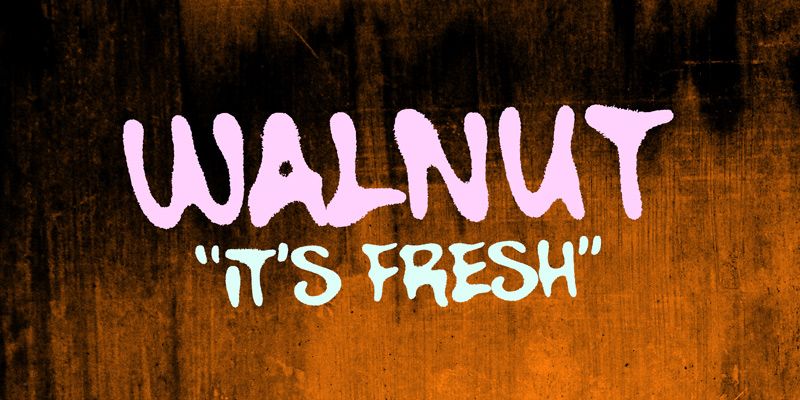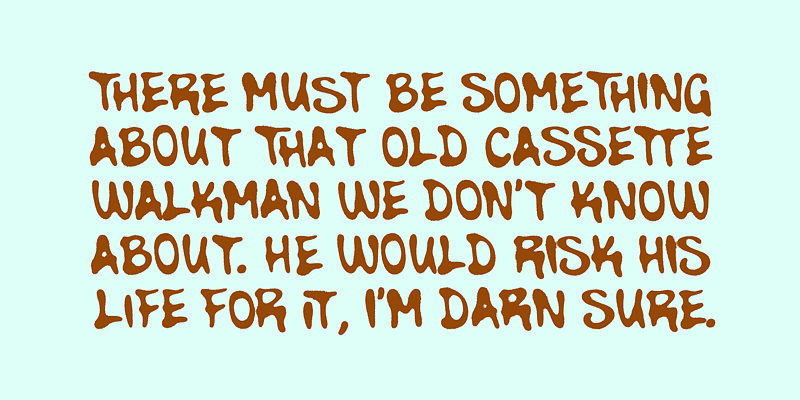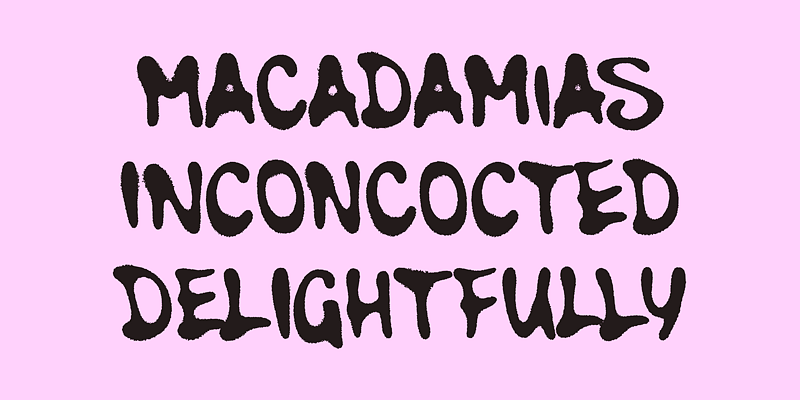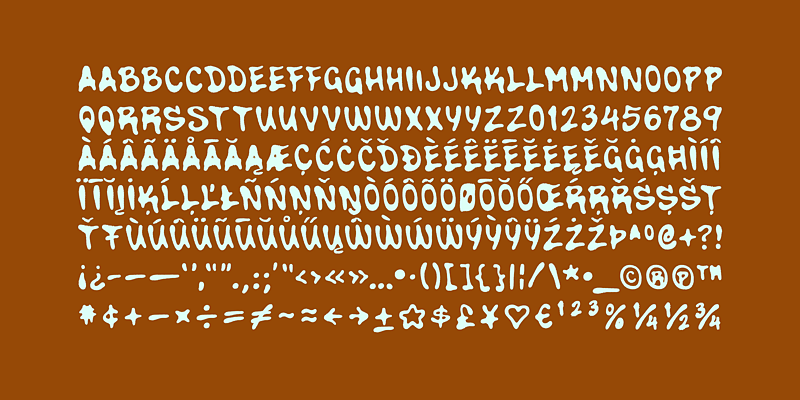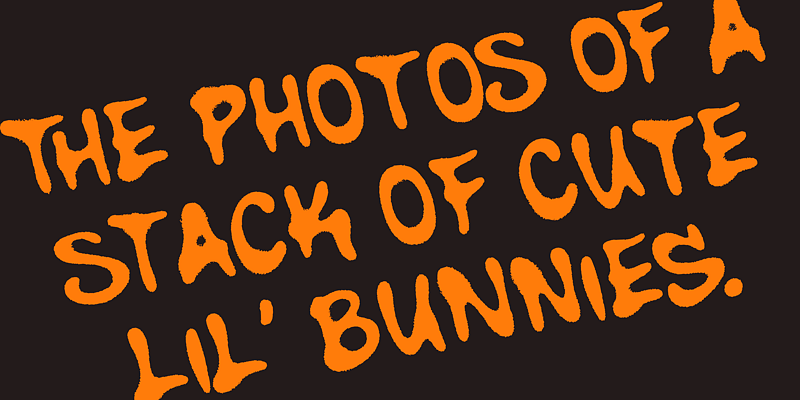
Walnut brings the immediacy of fresh graffiti into a chunky, playful display face. Its broad, uneven letters feel quickly applied, like an informal tag on a wall, yet they stay coherent enough to hold a short product name or campaign phrase. It works particularly well for colorful candy and snack packages, youth events, streetwear graphics, pop-up signage, and playful game titles. The irregular rhythm invites saturated color and bold placement. It can make an ordinary flavor name feel improvised on the spot.